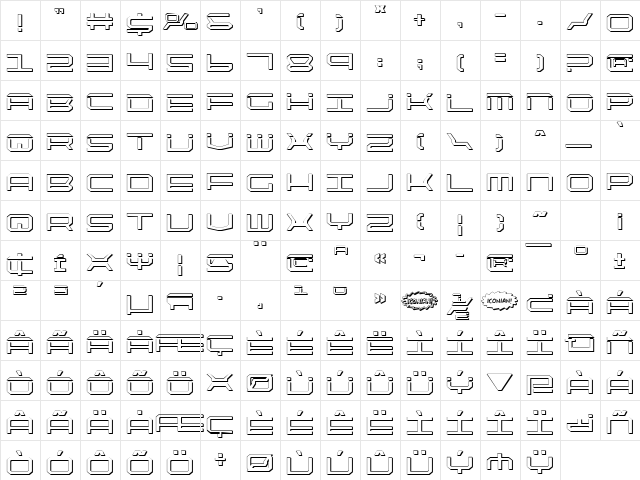
QuickTech Shadow Shadow
| Designer | Dan Zadorozny |
Design Context for QuickTech Shadow Typeface
QuickTech Shadow channels digital-age aesthetics through its sharp, structured letterforms — ideal for brands that want to signal innovation.